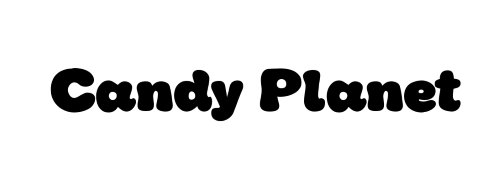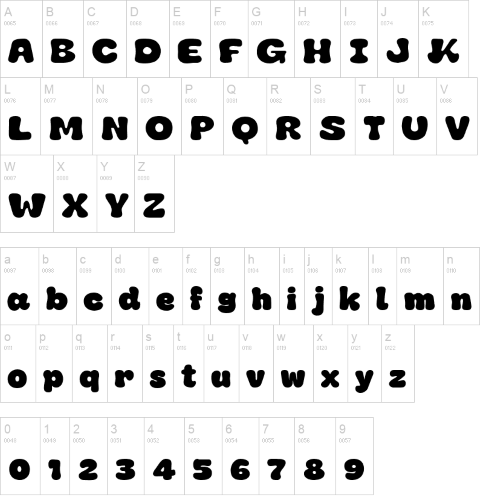
Candy Planet
Candy Planet Font is a fun, cartoon-style display typeface bursting with color and personality. With its chunky, rounded letterforms and playful rhythm, it’s perfect for kids’ designs, game titles, posters, packaging, and cheerful branding. Candy Planet brings sweetness, energy, and a joyful animated vibe to any creative project.
➤ Style: Cartoon